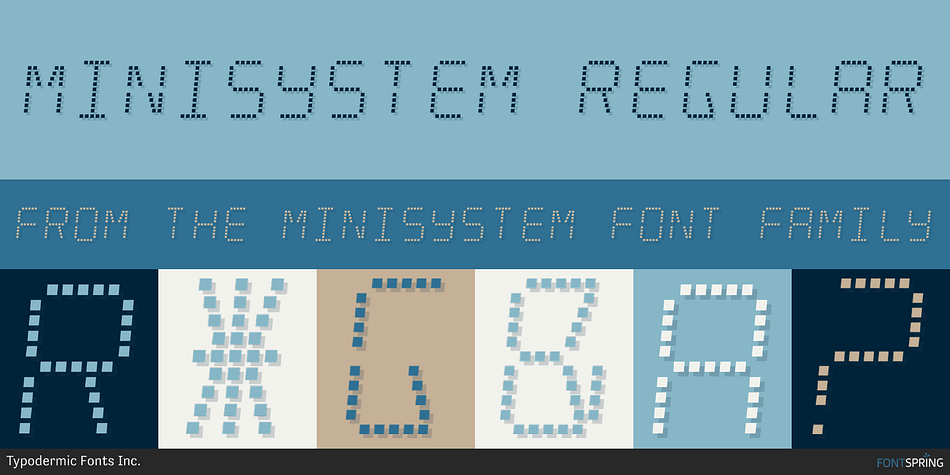
MINISYSTEM REGULAR
Minisystem is a pixel font published by Typodermic Fonts Inc.
Do you long for the days of futuristic, dot-matrix displays that adorned the coolest gadgets of the 1990s? Then you need Minisystem, the typeface with retro digital panache.
Back in the day, genuine bitmap displays were reserved for the most high-end devices. Lower end devices had to settle for segmented character displays with dotted segments. Minisystem gives your designs that authentic feel that will transport you back to the golden age of car and home stereos.